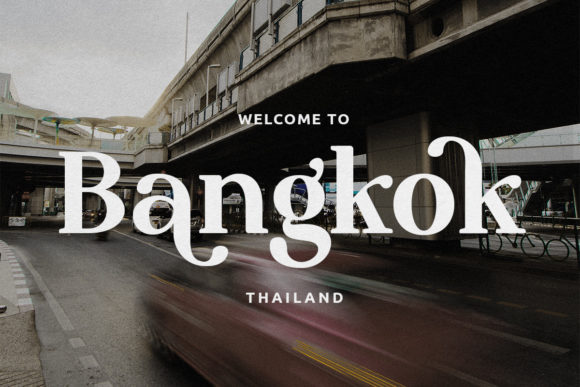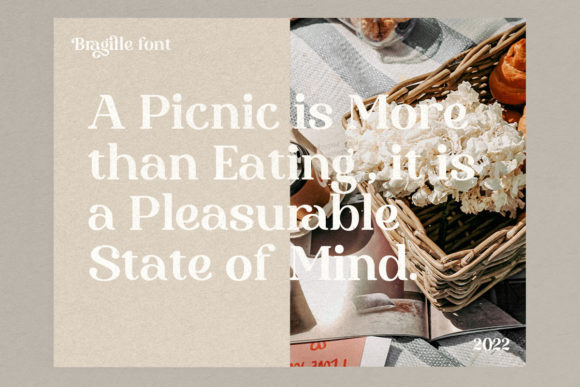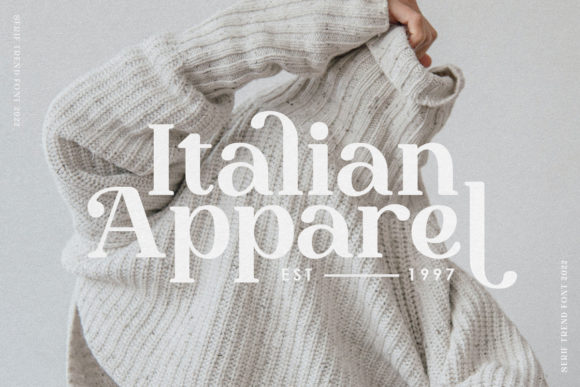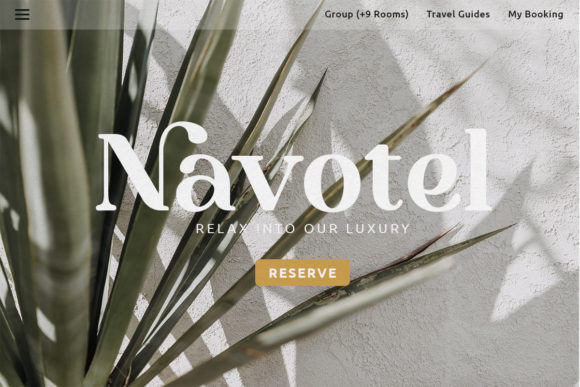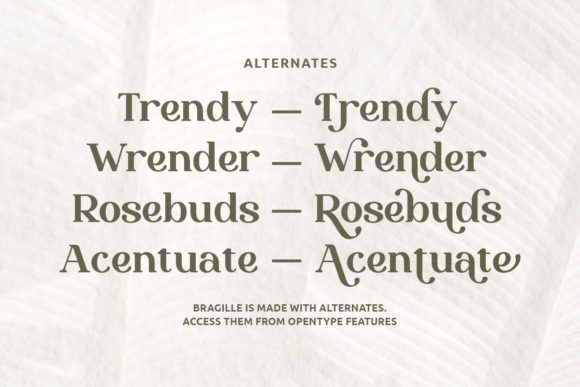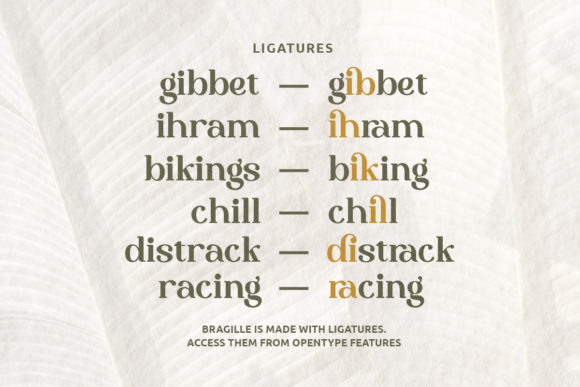
Bragille Font: Elevate Your Design with Modern Bold Serif
In the world of typography, a font can make or break a design. If you’re a designer or crafter looking to add a touch of sophistication and style to your project, look no further than the Bragille Font. This modern bold serif font is designed to make your project stand out from the crowd, with a range of stylish ligatures and alternates that will take your design to the next level.
What is Bragille Font?
Bragille Font is a contemporary bold serif font that exudes confidence and style. Its sleek lines, precise curves, and sturdy serifs make it perfect for a wide range of design applications, from presentations and posters to logos and branding materials. With its modern aesthetic, Bragille Font is ideal for designers and crafters who want to create a lasting impression.
Key Features of Bragille Font
- Modern Bold Serif: Bragille Font boasts a bold and sturdy serif design that commands attention and exudes professionalism.
- Stylish Ligatures: The font comes with a range of stylish ligatures that allow you to create unique and eye-catching text combinations.
- Alternates: With a variety of alternate characters, you can experiment with different styles and create a truly customized look.
- High Versatility: Bragille Font is suitable for a wide range of design applications, from digital projects to print materials.
Benefits of Using Bragille Font
- Stand Out: With Bragille Font, you can create designs that stand out from the crowd and grab attention.
- Professional Look: The font’s modern bold serif design gives your project a professional and polished look.
- Customization: With ligatures and alternates, you can customize your text to create a unique and eye-catching design.
- Time-Saving: Bragille Font comes with a range of features that save you time and effort in the design process.
- Experiment with Ligatures: Try out different ligature combinations to create unique and eye-catching text effects.
- Play with Font Sizes: Experiment with different font sizes to create visual hierarchy and emphasis.
- Mix and Match: Combine Bragille Font with other fonts to create a customized and visually appealing design.
- Pay Attention to Details: Make sure to adjust font settings and spacing to ensure optimal readability and aesthetics.
| Font Name | Bragille Font |
| Author | baletype |
Bragille Font is a powerful tool for designers and crafters looking to elevate their design game. With its modern bold serif design, stylish ligatures, and alternates, this font is perfect for creating stunning and professional-looking designs. Whether you’re working on a presentation, poster, or branding project, Bragille Font is sure to make your project stand out. So why wait? Download Bragille Font today and take your design to the next level!